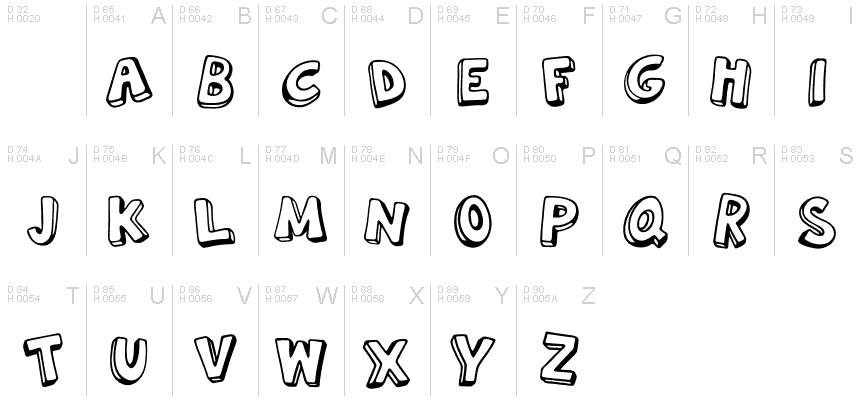
Playful Alphabet is a funny and bubbly display font with great readability designed by Fontsandfashion.
Versatile in any context, whether it's being used on busy backgrounds as comics or for witty children-themed designs, especially when combined with bright colors.
It is composed of 236 total glyphs, including basic Latin, Latin 1 Supplement, multilingual accents, numerals, and punctuations.